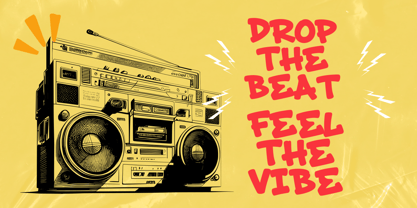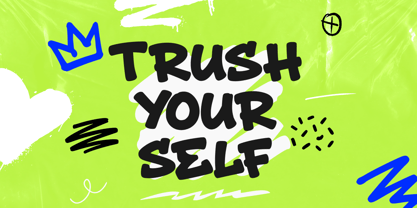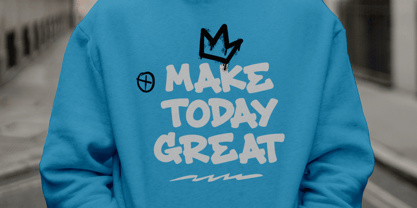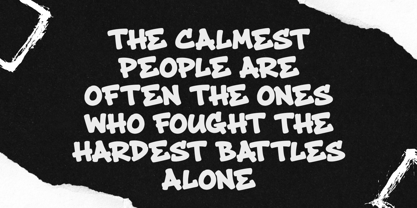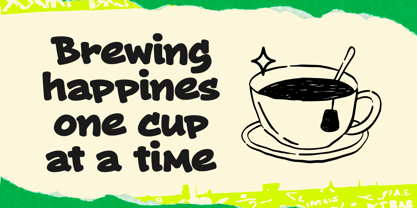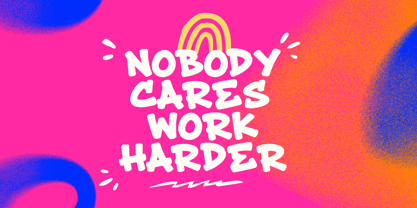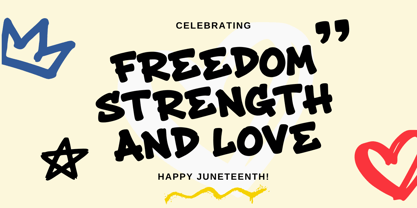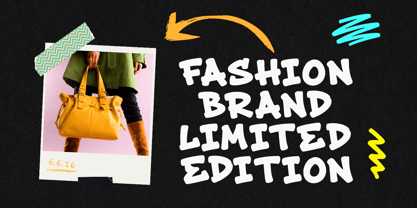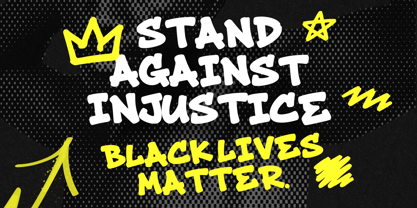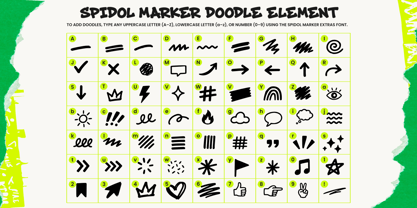
Spidol Marker
by Zeenesia Studio
The Spidol Marker Font Family was designed by Doni Purwoko and published by Zeenesia Studio. Spidol Marker contains 2 styles and family package options. More about this family
SPIDOL MARKER is a bold and playful brush marker font inspired by hand-drawn doodles, street art, and creative classroom sketches. Designed with thick strokes, organic curves, and an energetic personality, this font brings a fun and expressive touch to any project.
Perfect for posters, branding, packaging, social media graphics, children’s products, YouTube thumbnails, merchandise, and creative headlines, SPIDOL MARKER instantly grabs attention with its strong visual impact. The included extra doodle elements make it even easier to create vibrant and eye-catching designs.
Designers: Doni Purwoko
Foundry: Zeenesia Studio